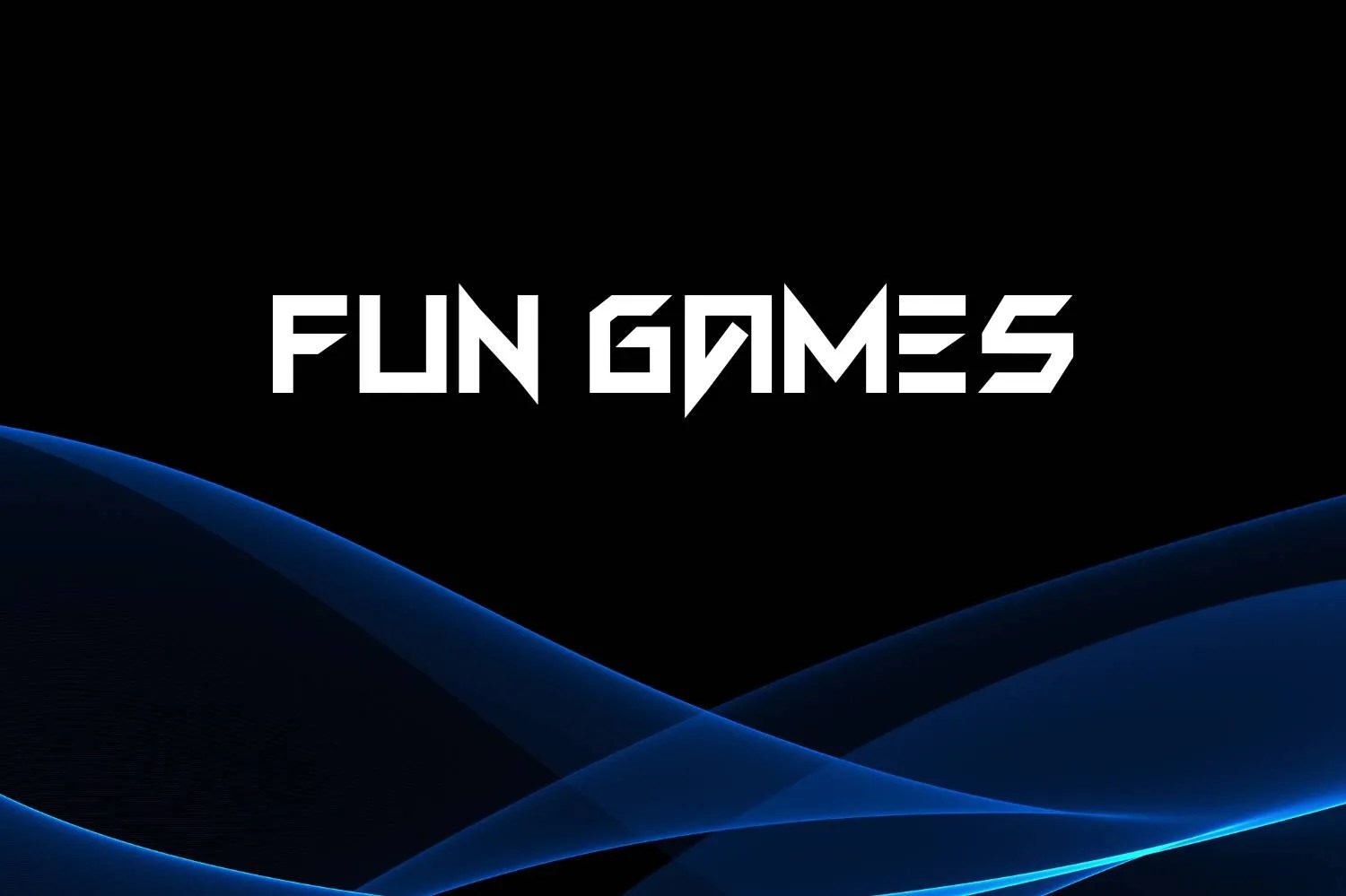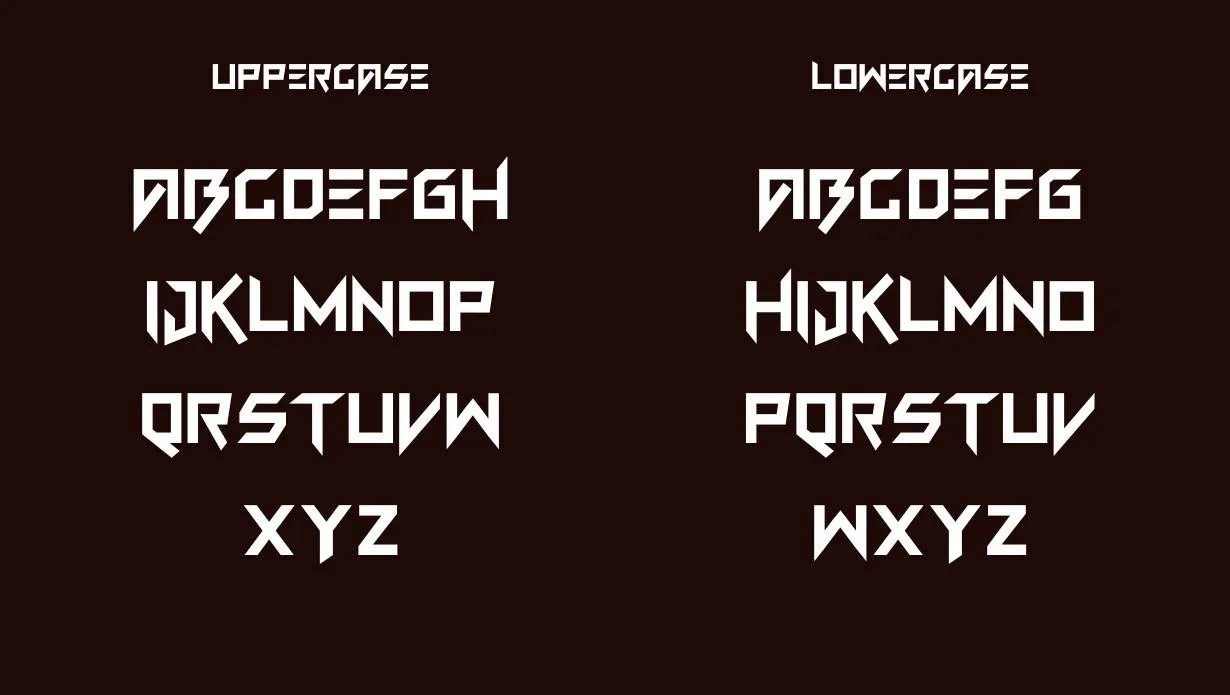
Fun Games Font Free Download . Fun games font is a modern and strong techno font. Download and install the fun games font by stringlabs. Fun games display font is a modern display font with a bold feel. It is the best for logos, branding and quotes. Fun games font by stringlabs download free for personal use 4,5/5 (844) On top of everything, it has a techno feel to it, making it ideal for titles, subtitles and ui. Fun games font is a geometric, minimalistic, display typeface. The fun games font has been downloaded 10,650 times. Fun games is a modern futuristic font with a bold feel. It contains both uppercase and lowercase characters, which makes it useful for display,. It will add a contemporary update to any design project. Every letter has a unique and.
Download and install the fun games font by stringlabs. 4,5/5 (844) Fun games display font is a modern display font with a bold feel. It contains both uppercase and lowercase characters, which makes it useful for display,. Every letter has a unique and. The fun games font has been downloaded 10,650 times. It is the best for logos, branding and quotes. On top of everything, it has a techno feel to it, making it ideal for titles, subtitles and ui. Fun games is a modern futuristic font with a bold feel. It will add a contemporary update to any design project.
Fun Games Font Free Download Every letter has a unique and. It will add a contemporary update to any design project. Download and install the fun games font by stringlabs. Fun games font is a modern and strong techno font. It contains both uppercase and lowercase characters, which makes it useful for display,. It is the best for logos, branding and quotes. Fun games font by stringlabs download free for personal use 4,5/5 (844) On top of everything, it has a techno feel to it, making it ideal for titles, subtitles and ui. Every letter has a unique and. Fun games is a modern futuristic font with a bold feel. Fun games font is a geometric, minimalistic, display typeface. Fun games display font is a modern display font with a bold feel. The fun games font has been downloaded 10,650 times.
25+ Best Gaming Fonts in 2021 (Free & Premium) Design Shack Fun Games Font Free Download Fun games font is a geometric, minimalistic, display typeface. Fun games display font is a modern display font with a bold feel. On top of everything, it has a techno feel to it, making it ideal for titles, subtitles and ui. Download and install the fun games font by stringlabs. 4,5/5 (844) It contains both uppercase and lowercase characters,. Fun Games Font Free Download.
Download FUN GAMES font Fun Games Font Free Download 4,5/5 (844) Fun games display font is a modern display font with a bold feel. It is the best for logos, branding and quotes. Fun games font is a geometric, minimalistic, display typeface. Download and install the fun games font by stringlabs. Every letter has a unique and. Fun games is a modern futuristic font with a bold feel.. Fun Games Font Free Download.
Download FUN GAMES font Fun Games Font Free Download Fun games font by stringlabs download free for personal use It contains both uppercase and lowercase characters, which makes it useful for display,. It will add a contemporary update to any design project. 4,5/5 (844) On top of everything, it has a techno feel to it, making it ideal for titles, subtitles and ui. It is the best for. Fun Games Font Free Download.
Fun Games Font Download Fun Games Font Free Download It will add a contemporary update to any design project. Download and install the fun games font by stringlabs. It is the best for logos, branding and quotes. On top of everything, it has a techno feel to it, making it ideal for titles, subtitles and ui. The fun games font has been downloaded 10,650 times. It contains both uppercase. Fun Games Font Free Download.
30 Best Video Game Fonts for Fun, Authentic Designs Bittbox Fun Games Font Free Download Every letter has a unique and. The fun games font has been downloaded 10,650 times. Fun games font is a modern and strong techno font. Fun games font by stringlabs download free for personal use It will add a contemporary update to any design project. It contains both uppercase and lowercase characters, which makes it useful for display,. Fun games. Fun Games Font Free Download.
FUN GAMES Free Font Download MaisFontes Fun Games Font Free Download On top of everything, it has a techno feel to it, making it ideal for titles, subtitles and ui. Every letter has a unique and. It is the best for logos, branding and quotes. Fun games display font is a modern display font with a bold feel. Fun games font is a modern and strong techno font. 4,5/5 (844). Fun Games Font Free Download.
FUN GAMES Font StringLabs FontSpace Fun Games Font Free Download The fun games font has been downloaded 10,650 times. Fun games font is a geometric, minimalistic, display typeface. It contains both uppercase and lowercase characters, which makes it useful for display,. Fun games is a modern futuristic font with a bold feel. It is the best for logos, branding and quotes. Every letter has a unique and. Fun games font. Fun Games Font Free Download.